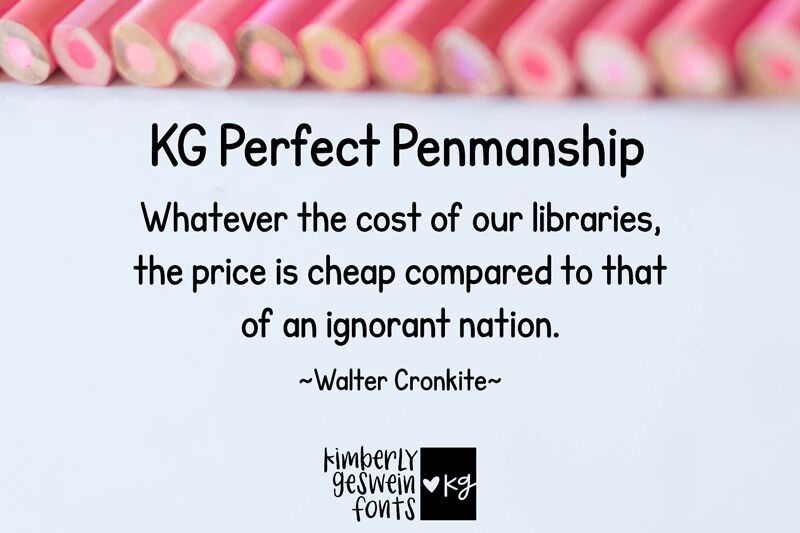
KG Perfect Penmanship font by Kimberly Geswein is a script typeface with a friendly, approachable, modern handwriting style. Its school-style design offers a casual aesthetic that can effortlessly elevate your personal projects. The simple visuals are easy to read and recognize, allowing the viewer to focus on the message right away.
Add a simplistic yet effective element to school notebooks, educational posters, students’ cards, magazine articles or covers, editorials for children books and websites, logos for startup companies and online platforms as well as business cards. Download this free handwriting font in OTF format for use in your next project.
KG Perfect Penmanship
Kimberly Geswein